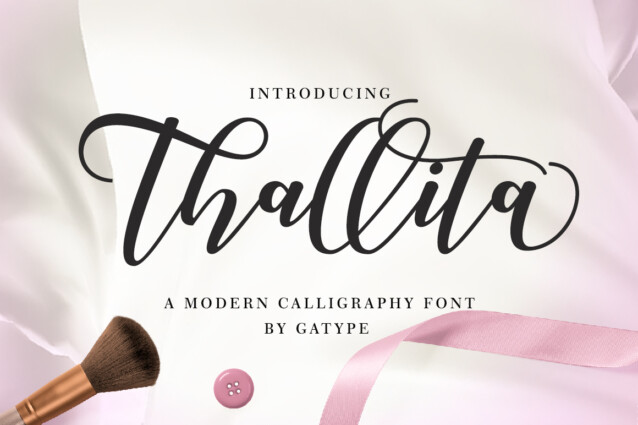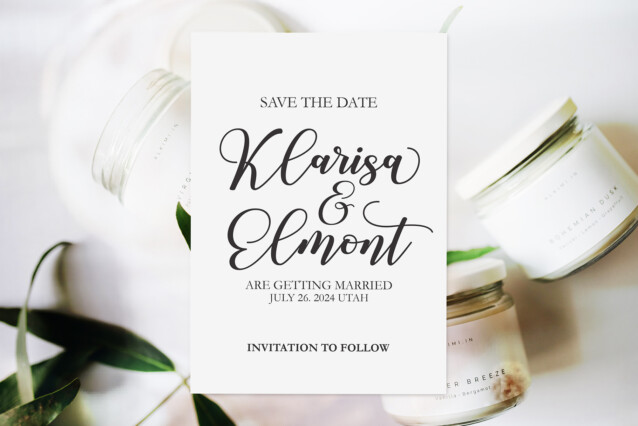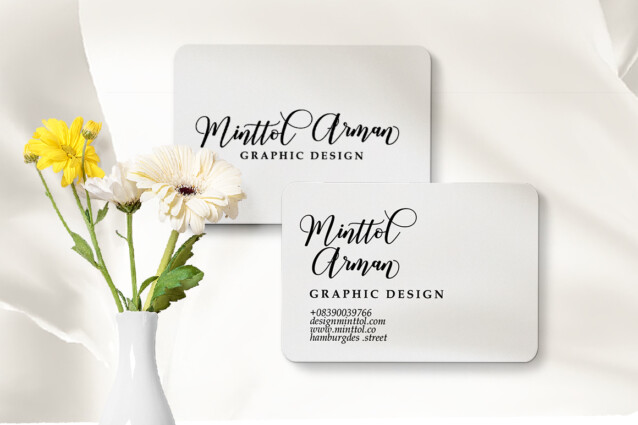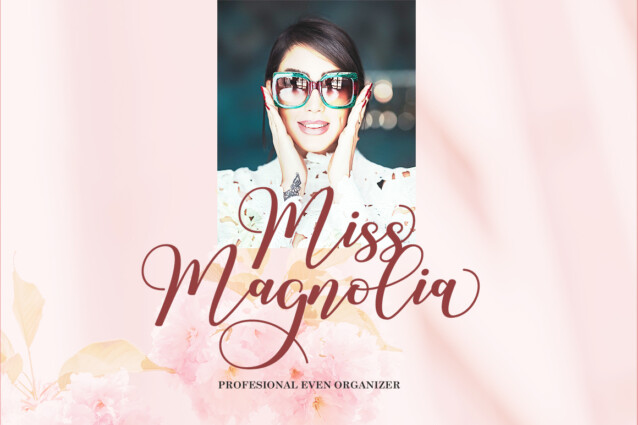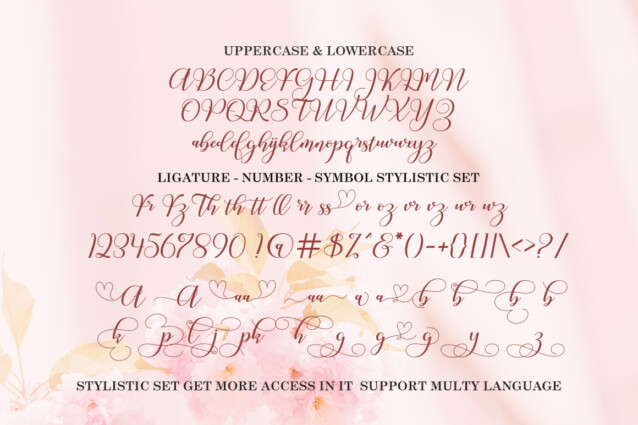
Thallita Script Font is sophisticated and modern, the perfect font for invitations such as weddings, dinner parties, private shows, and more. The natural handwriting appearance makes your invitation look more personal, making the recipient feel special.